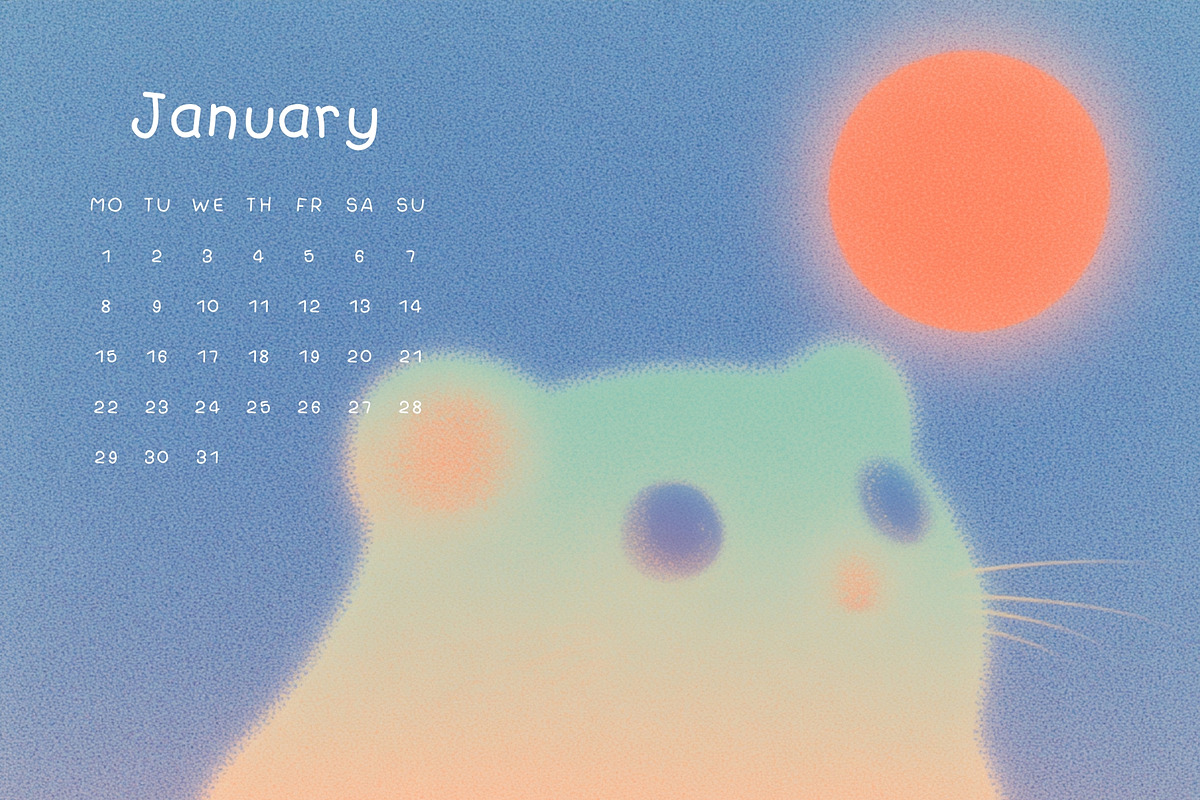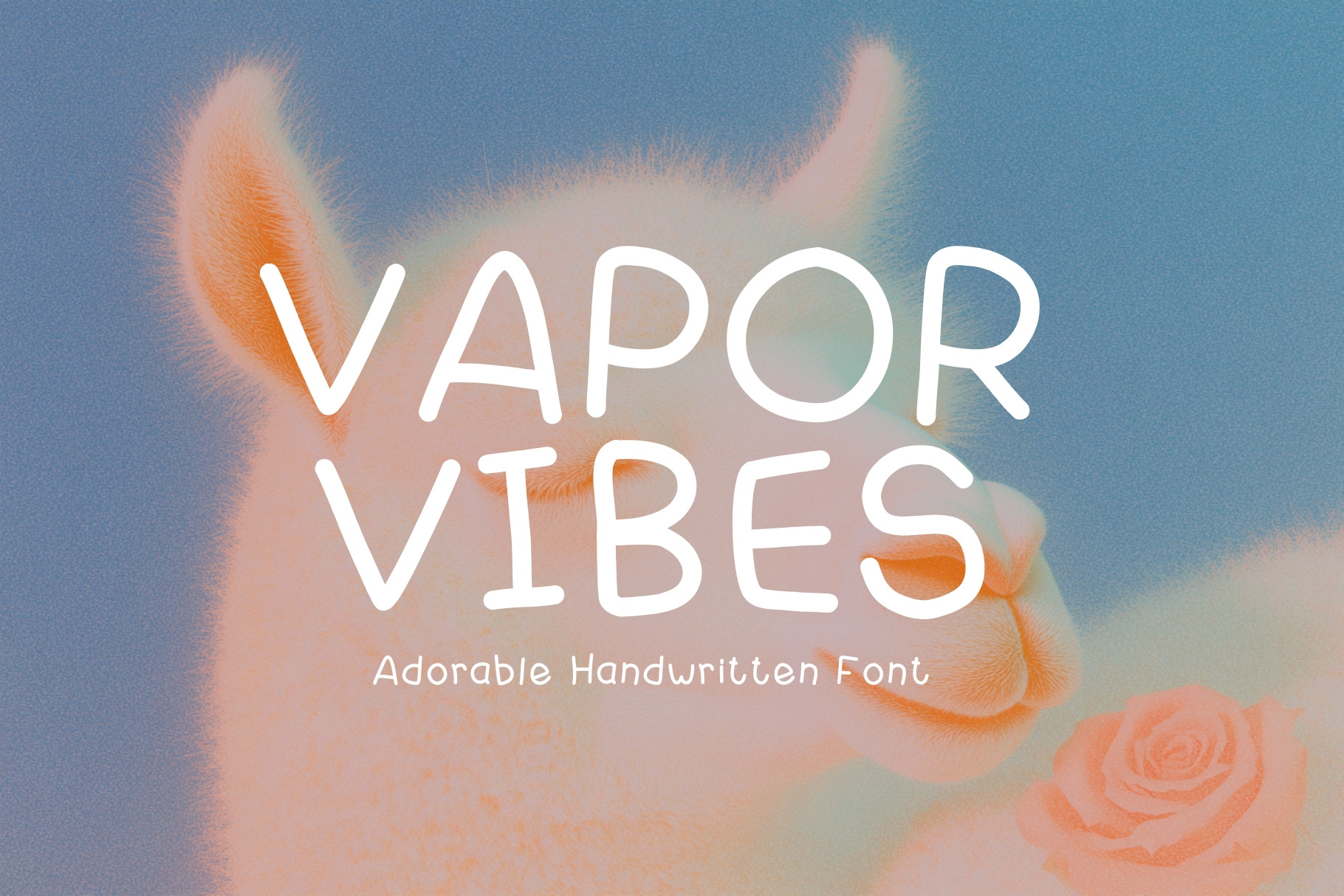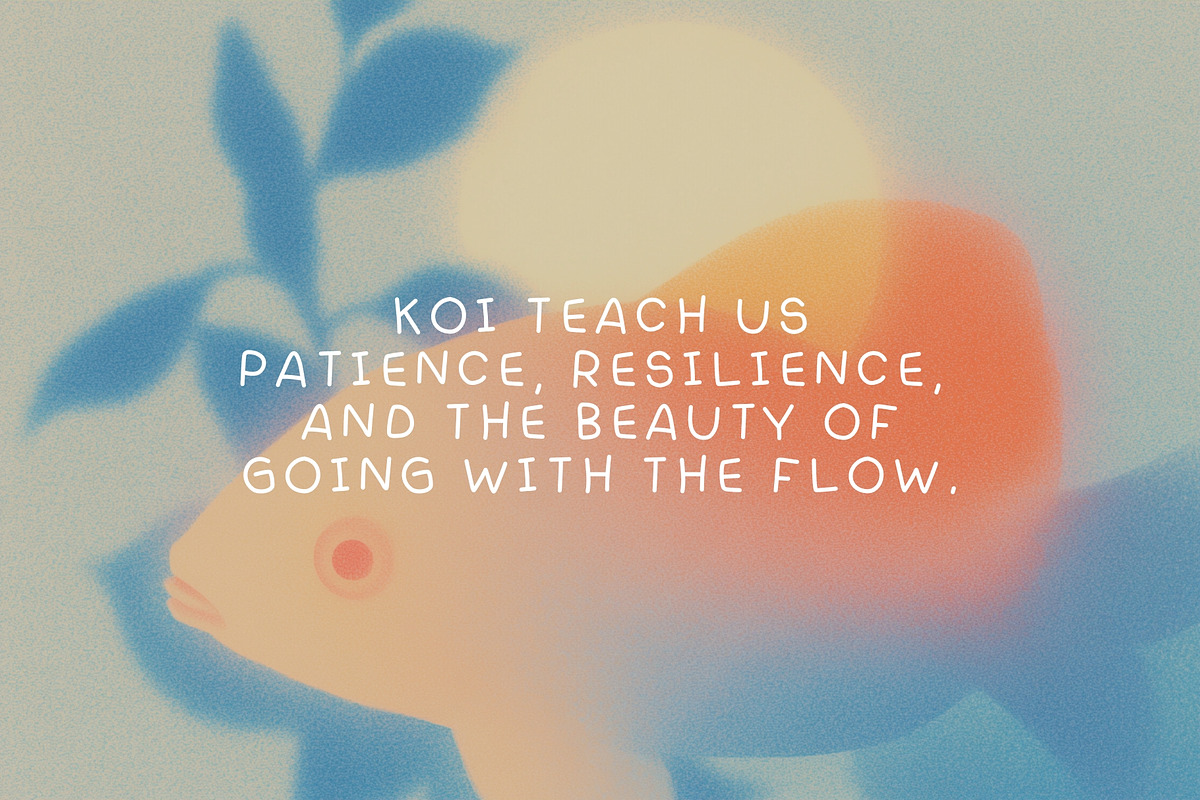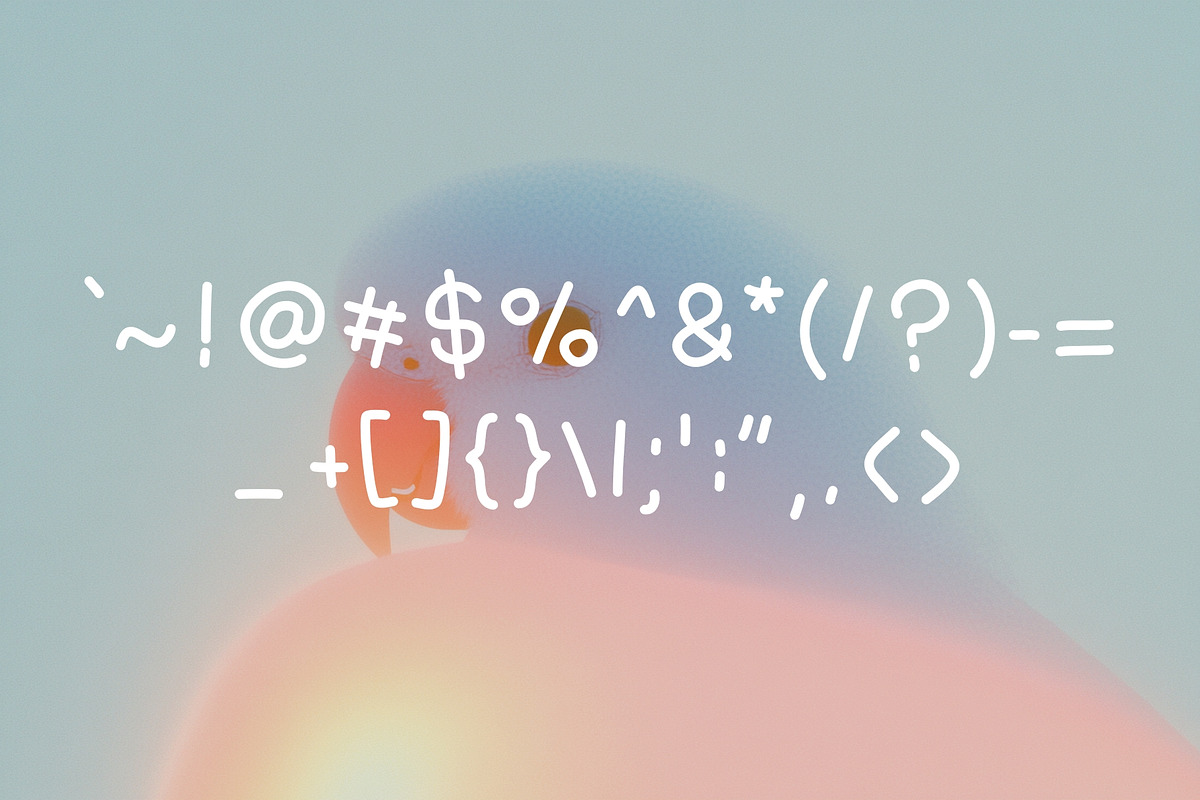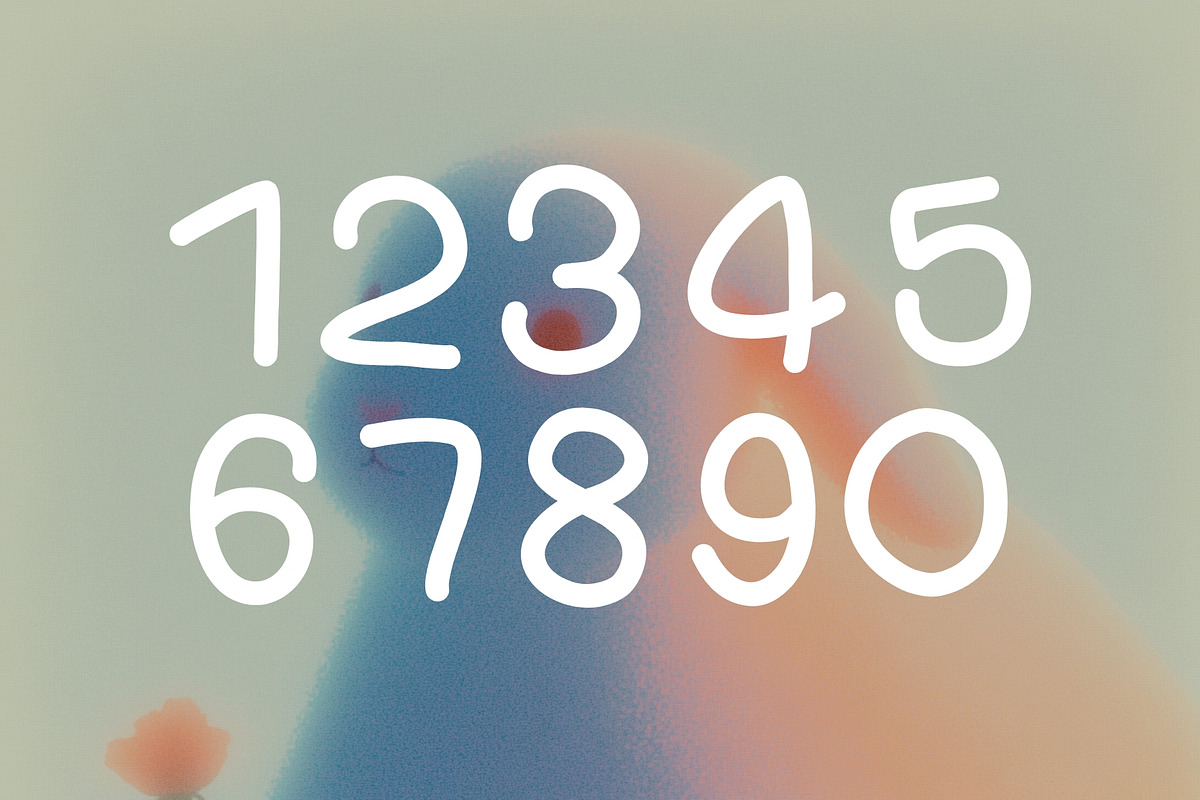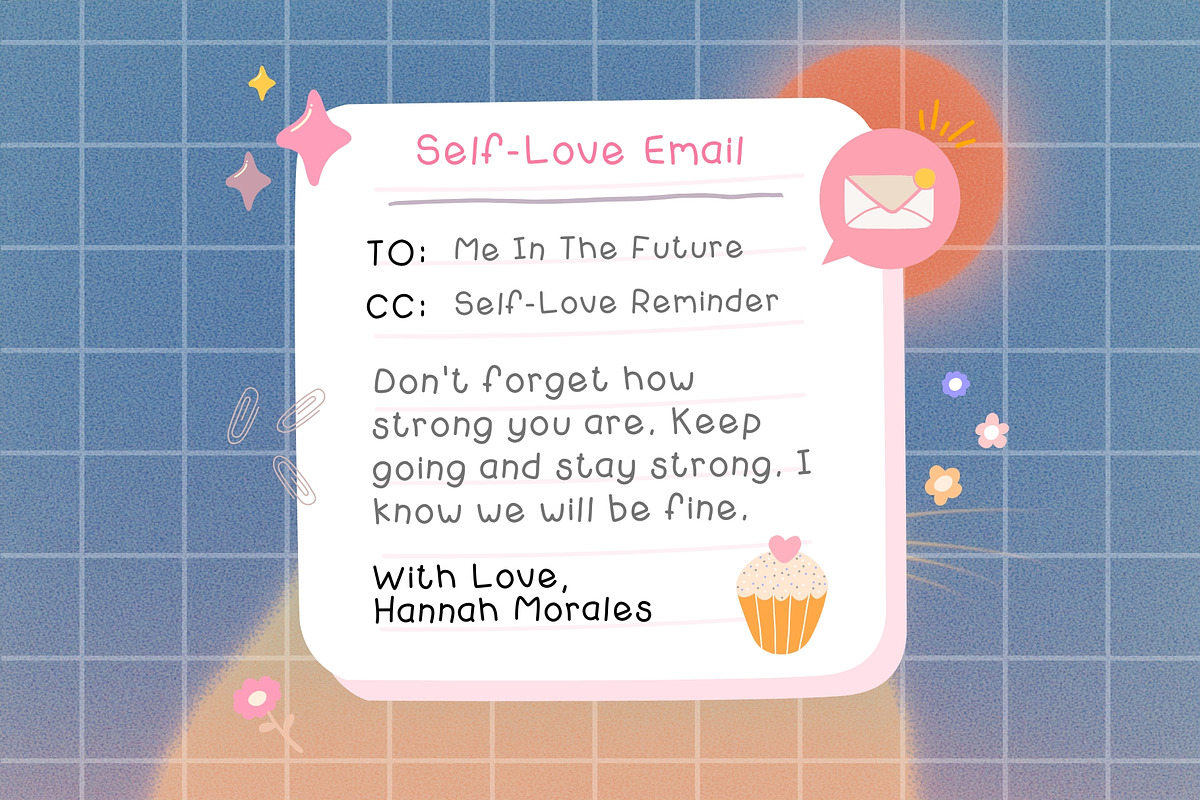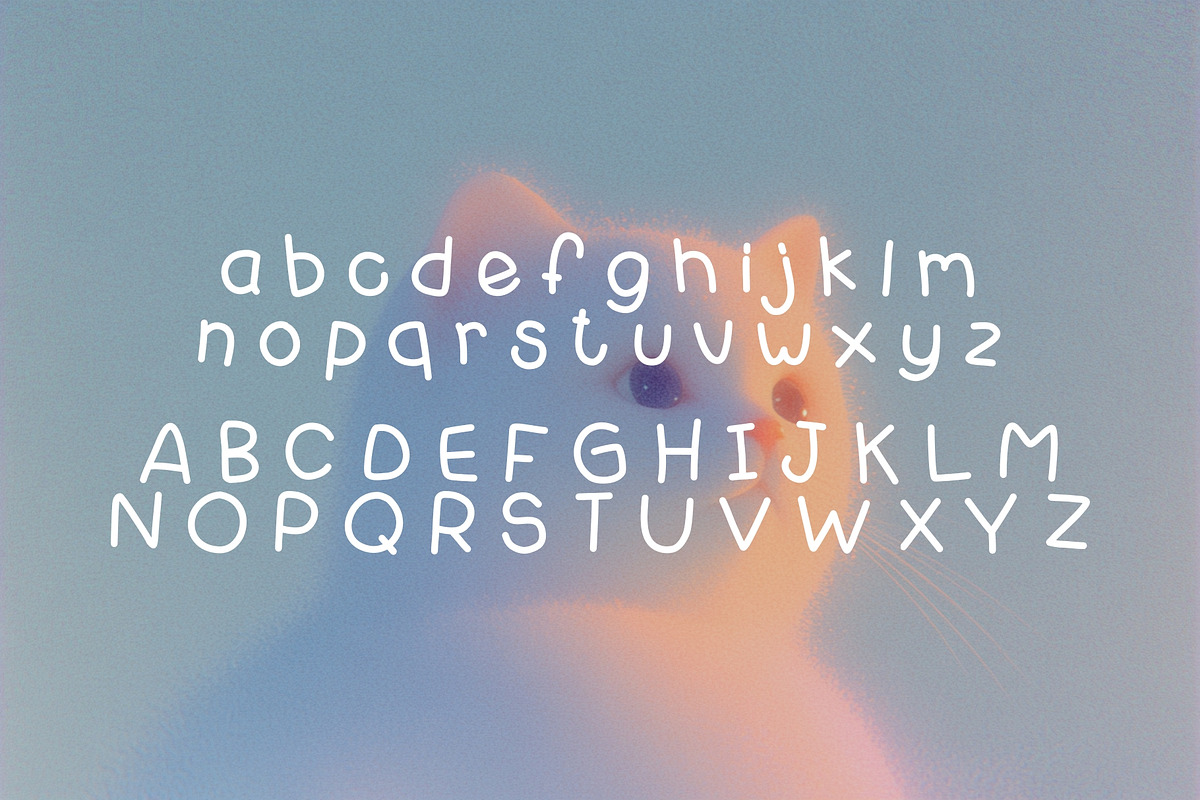
Vapor Vibes - Cute Kawaii Font
Introducing Vapor Vibes – a dreamy handwritten sans typeface inspired by the playful charm of kawaii culture! With its soft curves, bubbly strokes, and effortlessly cute aesthetic, Vapor Vibes is the perfect blend of adorable and modern. Whether you're designing for pastel aesthetics, cute branding, stationery, or social media graphics, this font radiates warmth and charm. Its smooth, clean letters ensure easy readability while maintaining a fun, girly personality. Perfect for planners, stickers, packaging, and everything sweet, Vapor Vibes is the go-to font for adding a touch of cuteness and positivity to your designs!